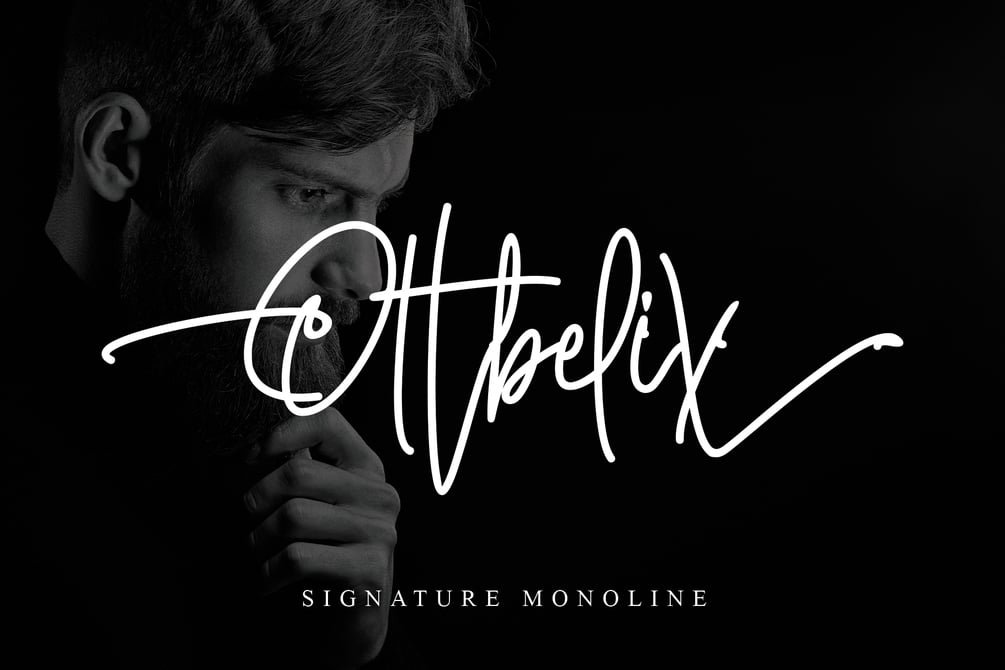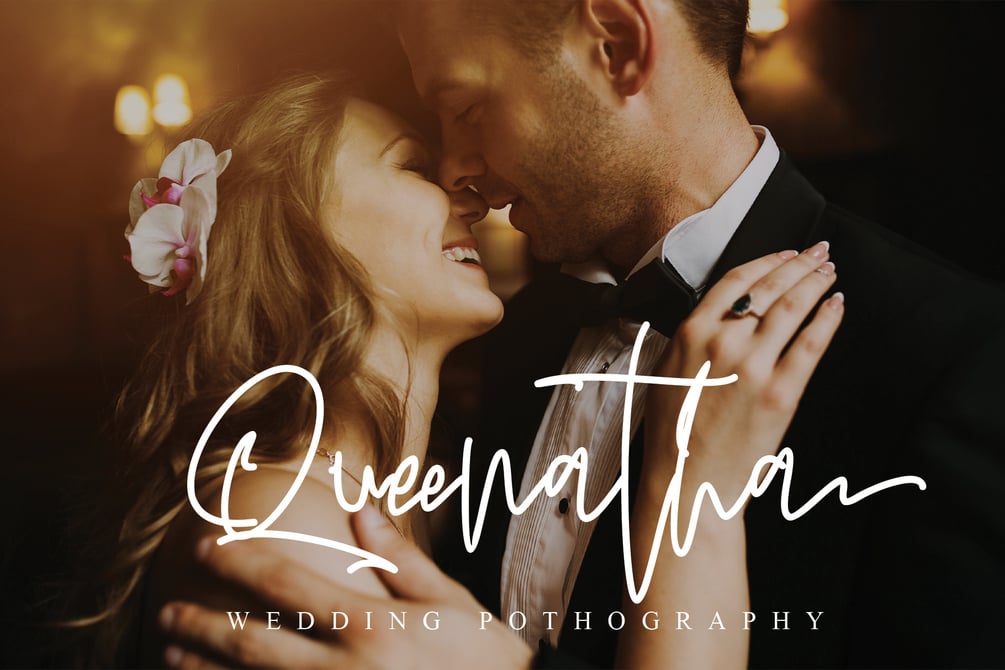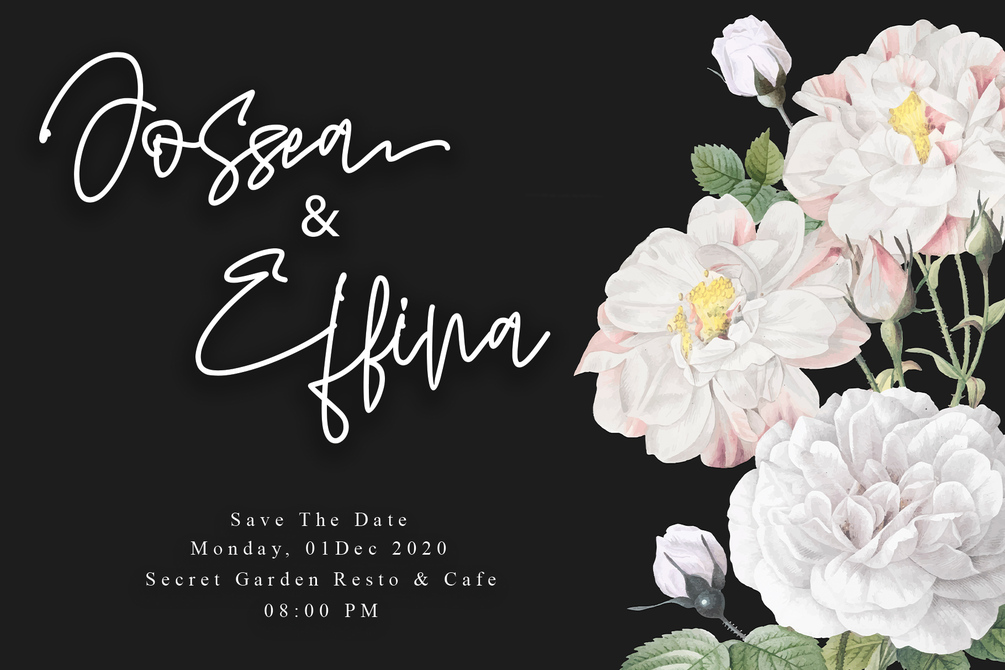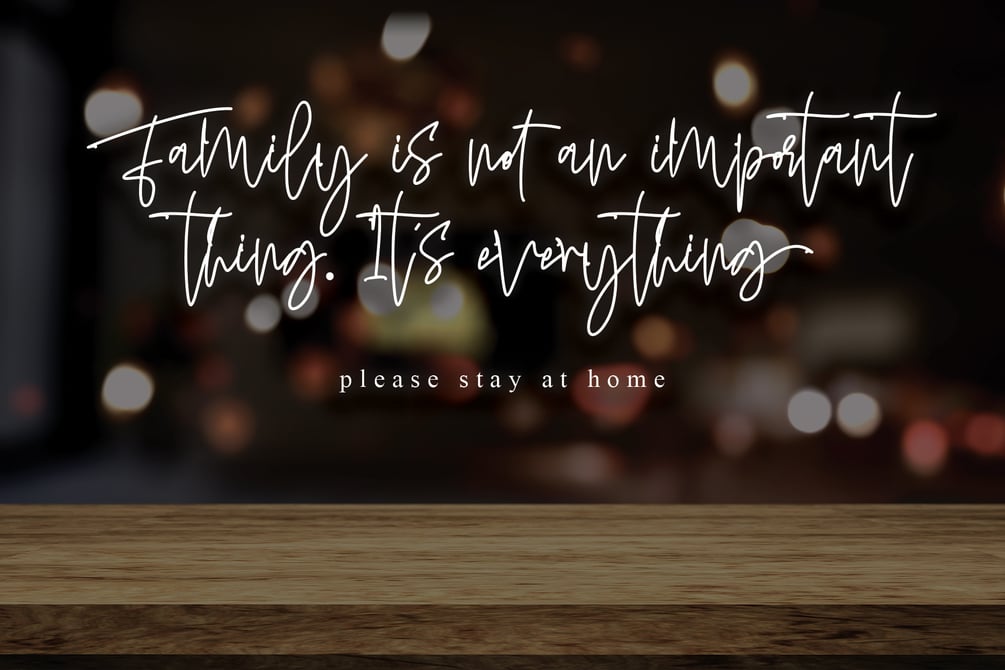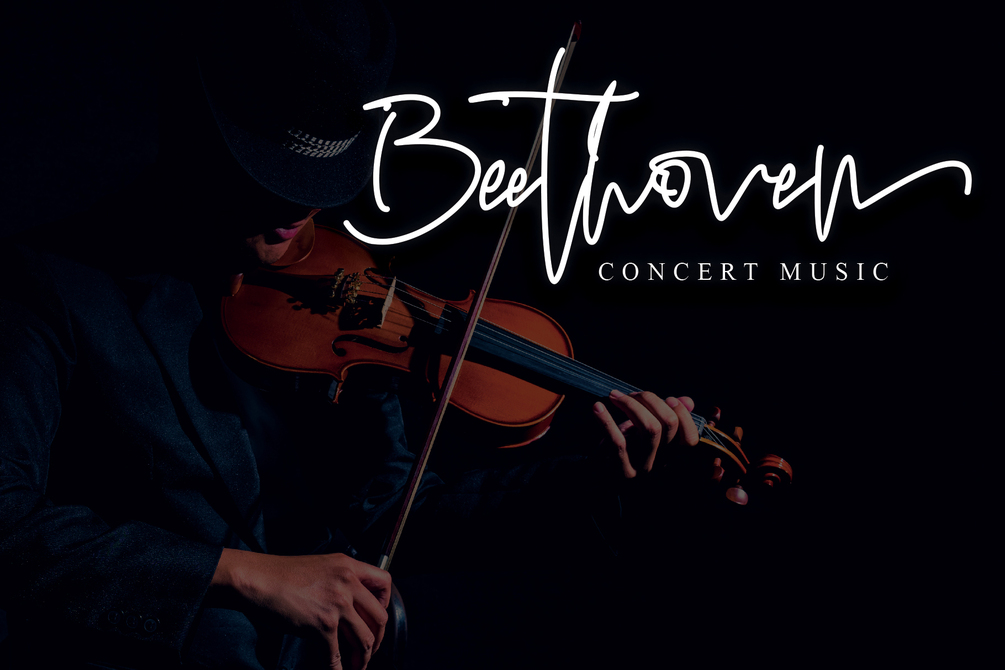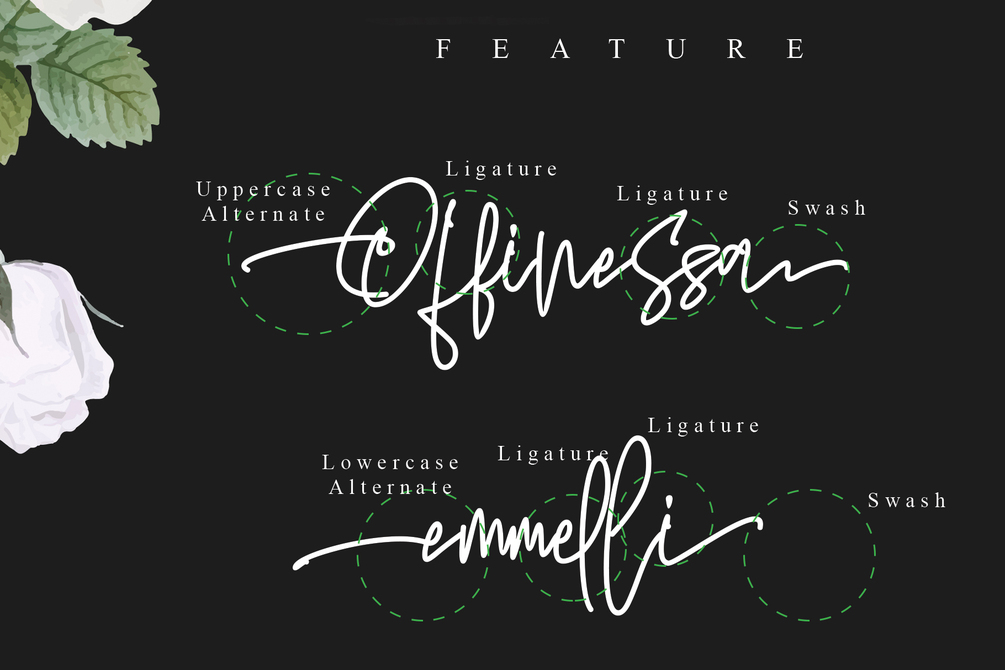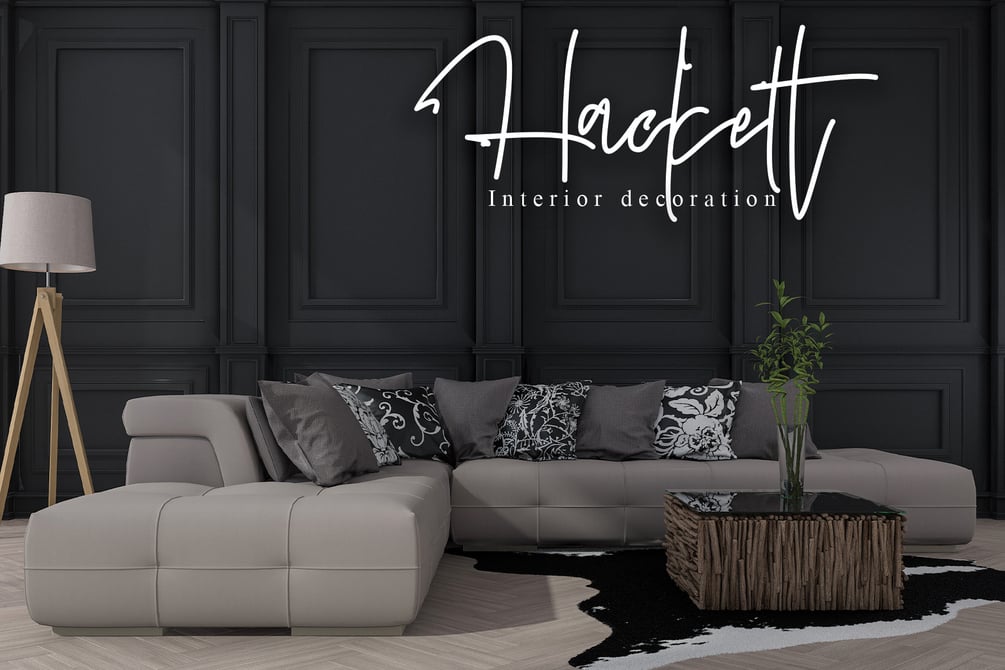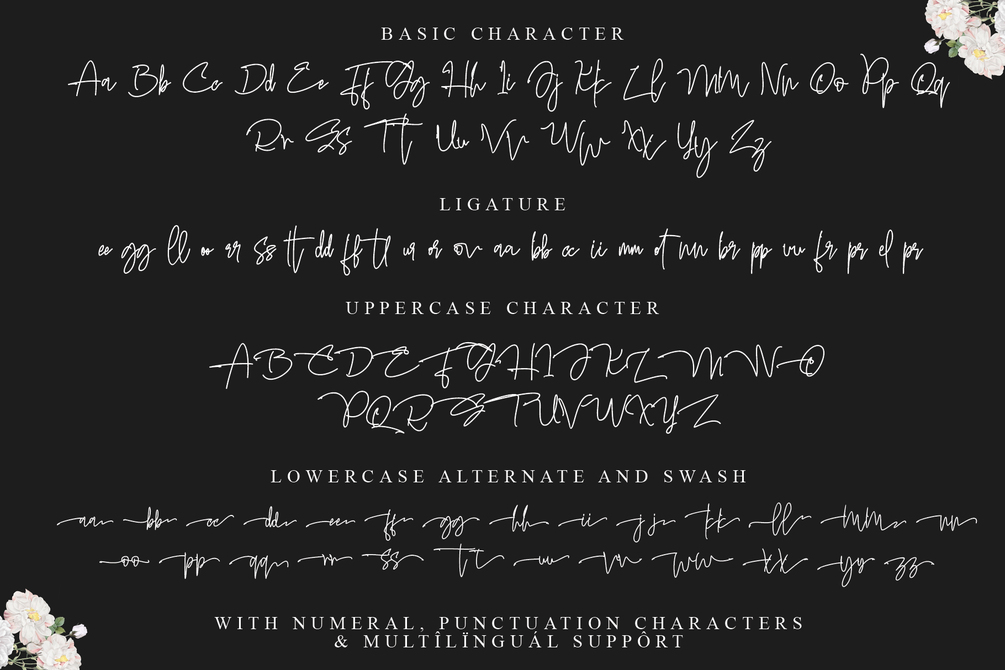
Ottbelix
Ottbelix is signature monoline font. Clean and elegant, cursive, legible script font which can be used on a wide variety of designs such as: headlines, titles, headings, logos, branding, posters, invitations, books, and any other creative design.